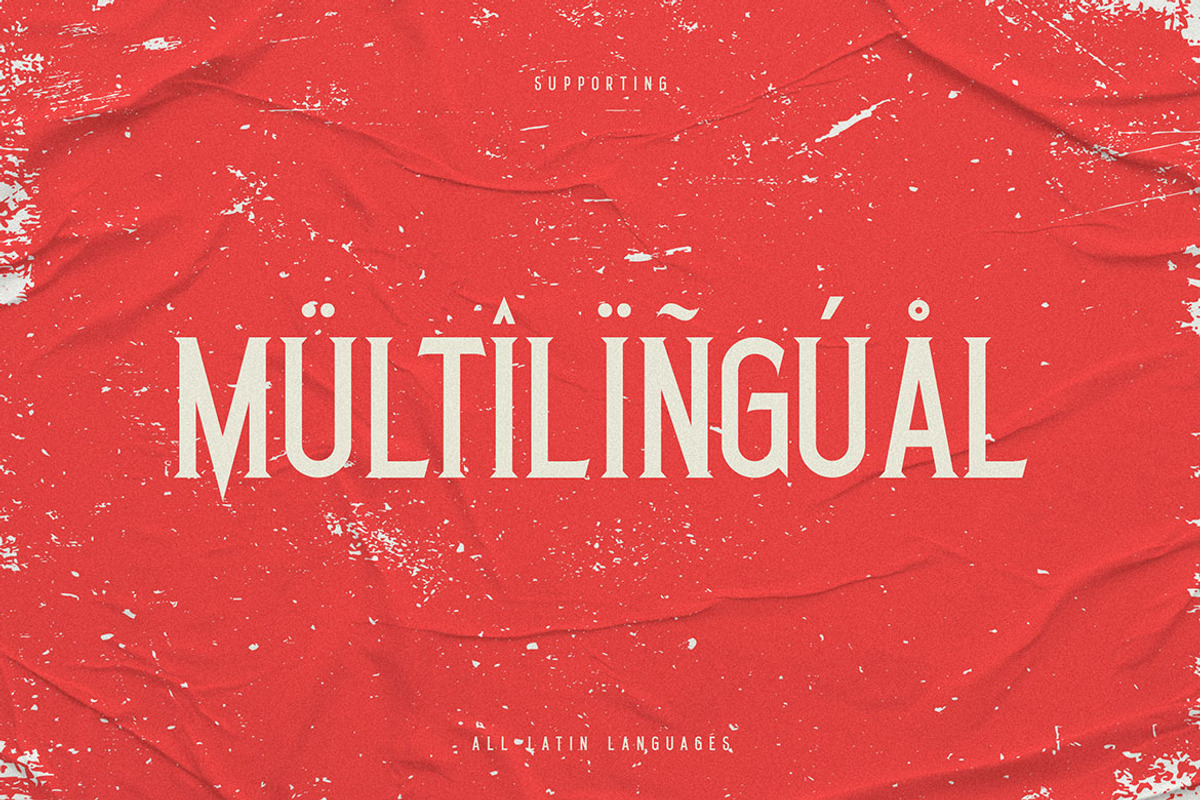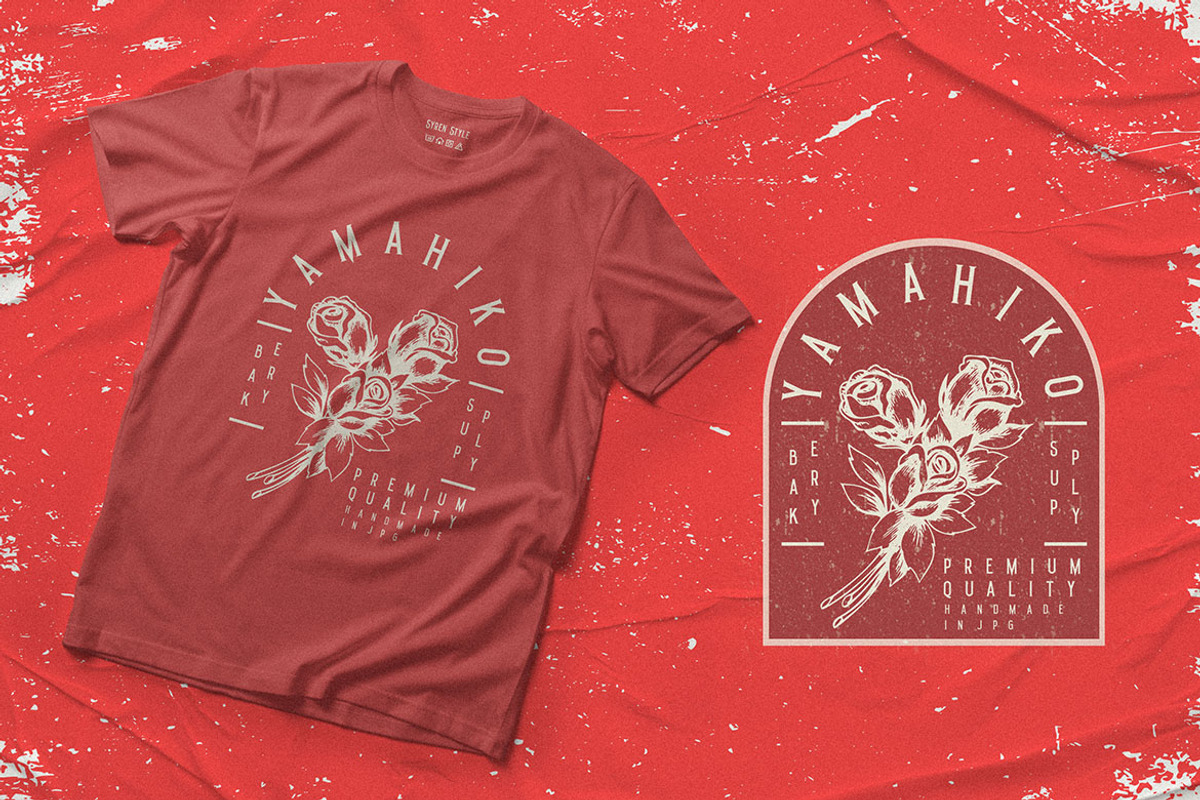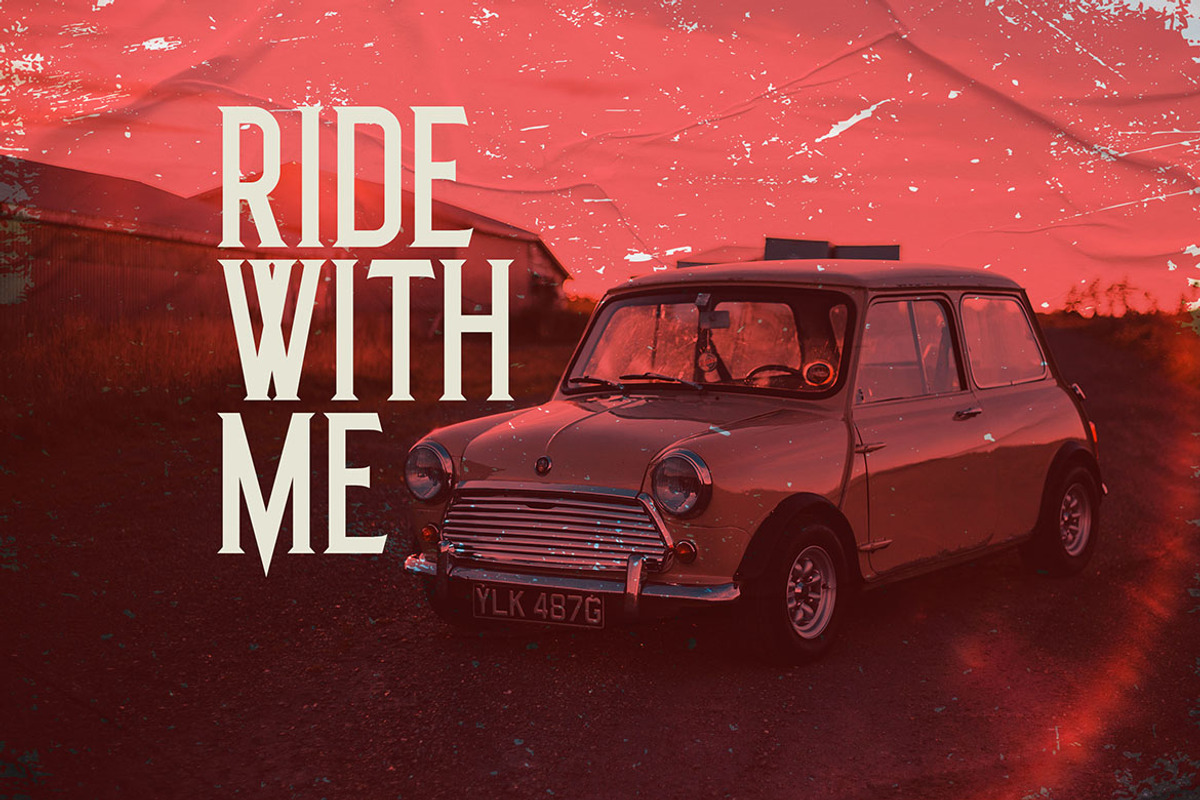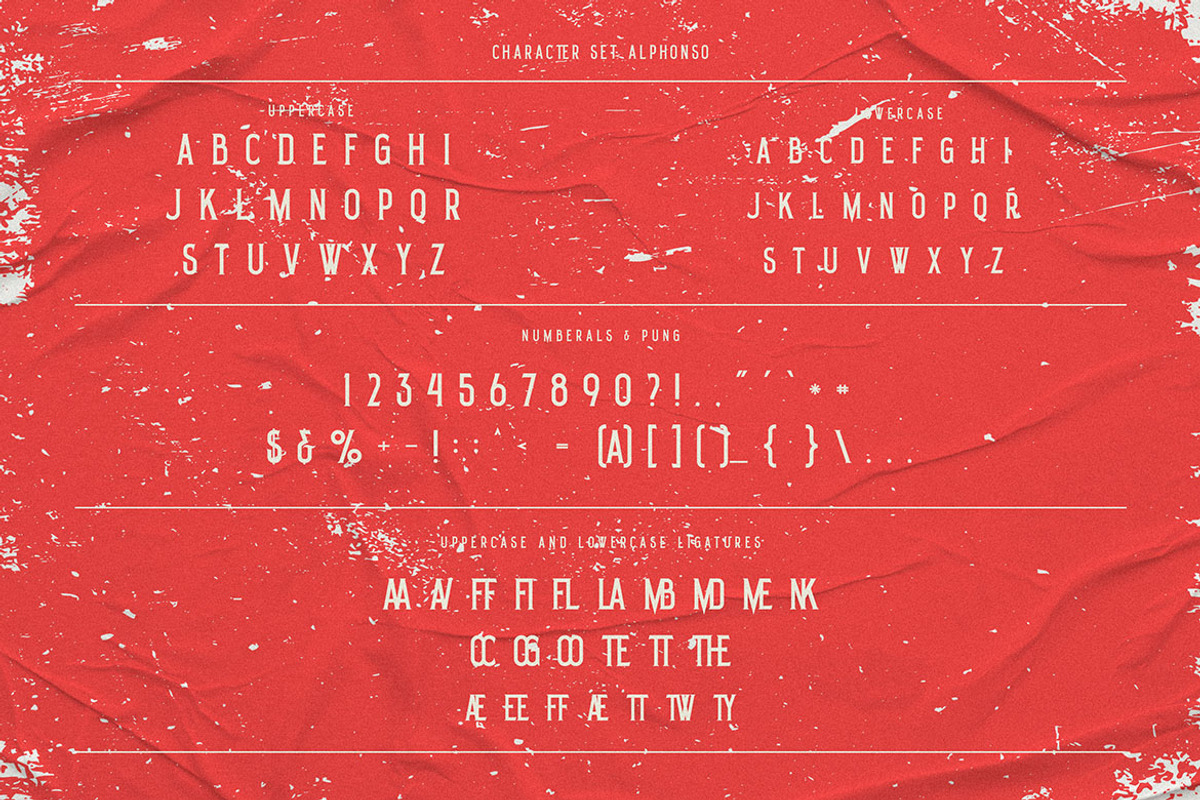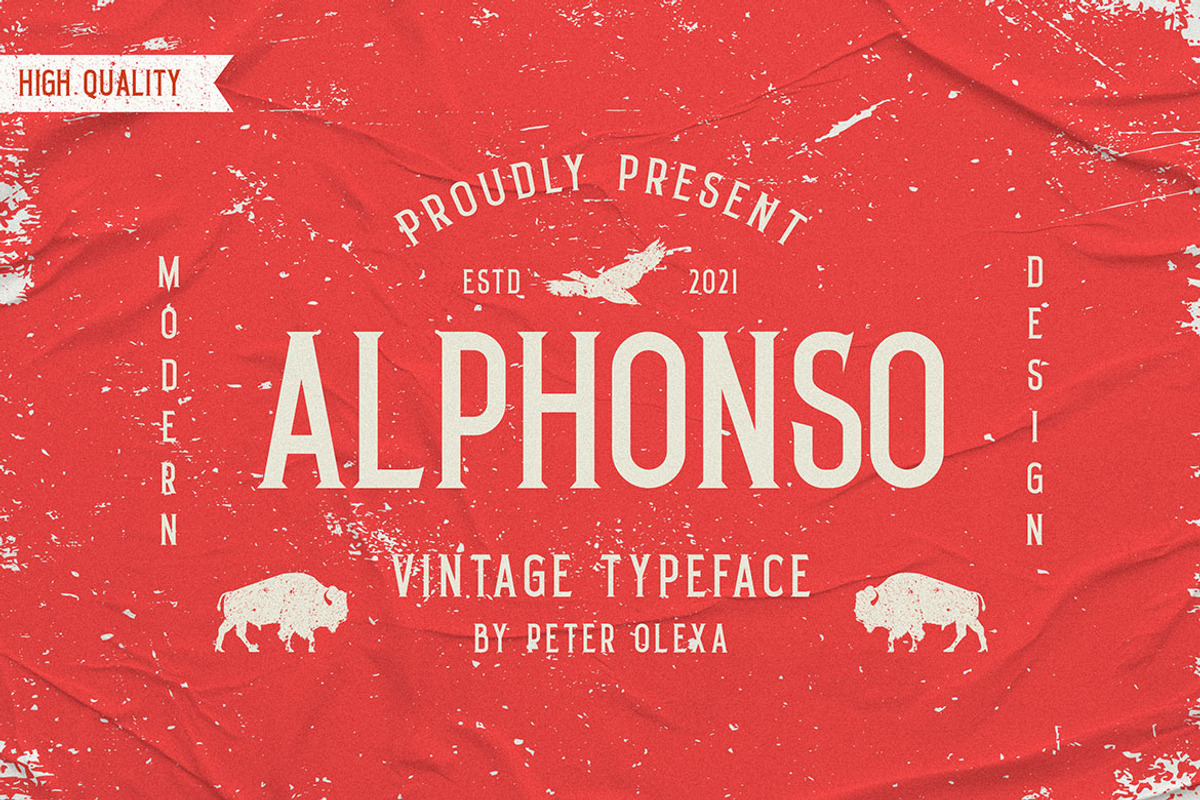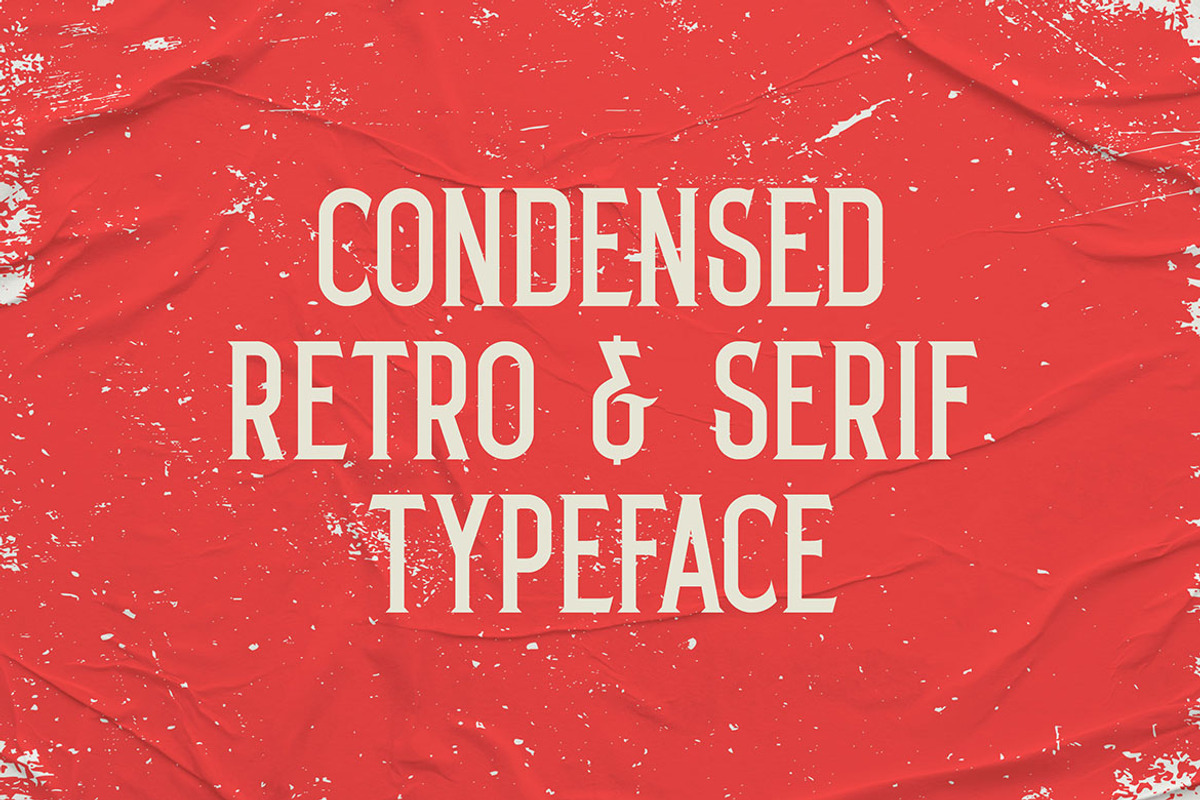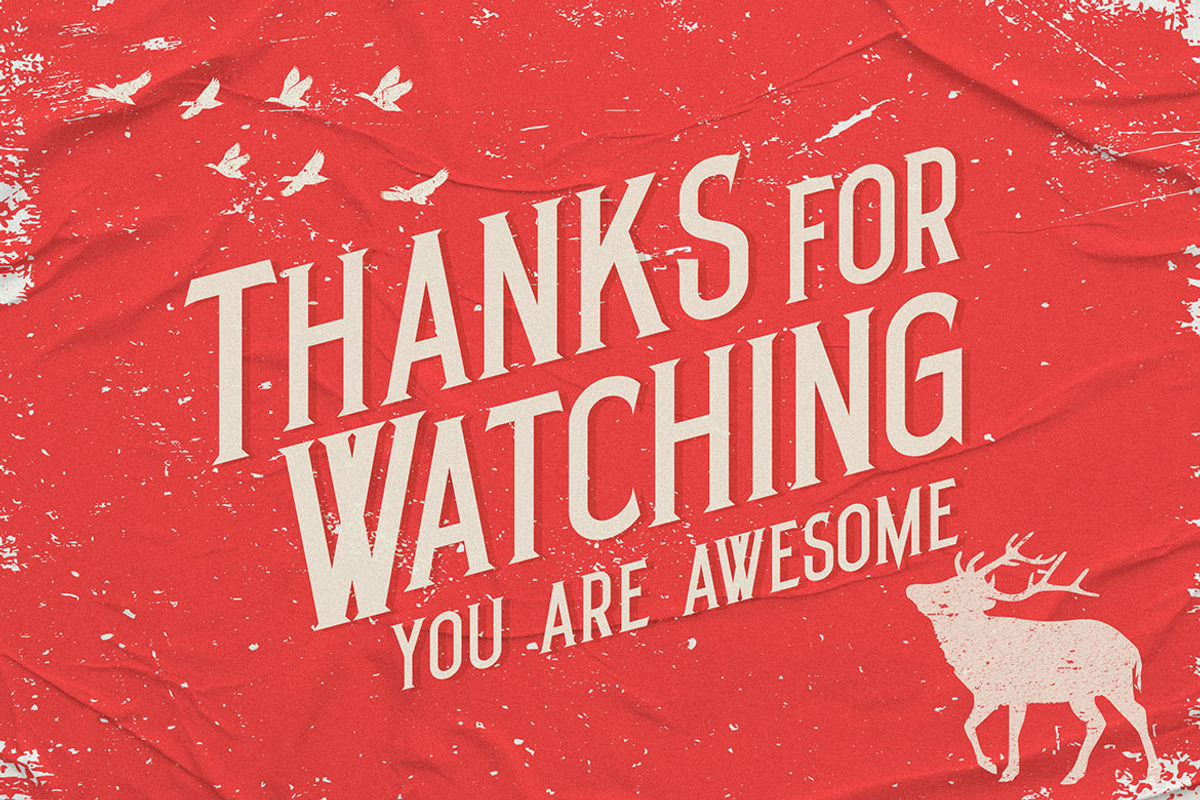
Alphonso Retro Font
Unique retro, modern & condensed serif font. Comes with multilingual support & ligatures - great for your new logo or branding project.
- Great for retro or vintage style branding projects